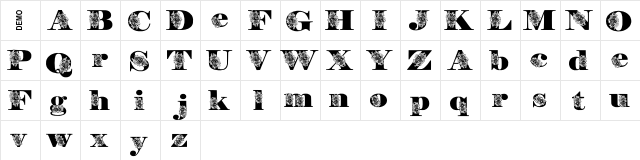
FloryAnna Demo
Design Context for FloryAnna Typeface
FloryAnna is a composed and adaptable typeface that performs quietly and consistently across a wide range of design contexts.